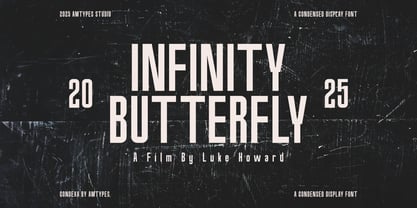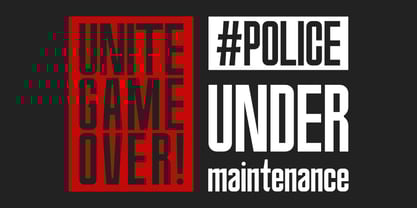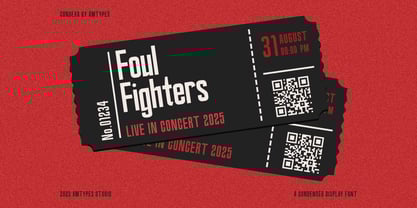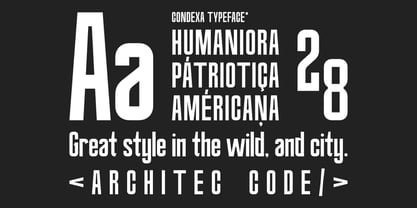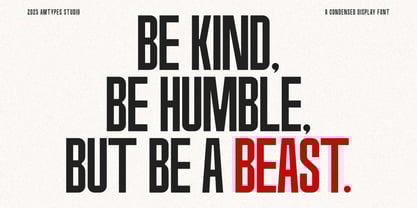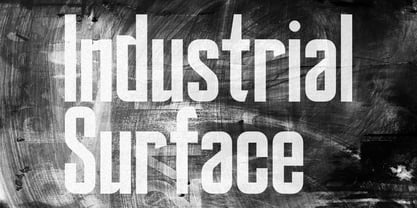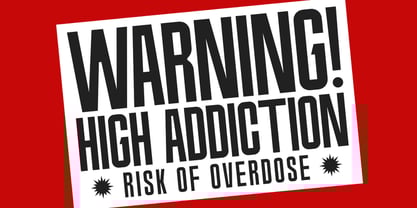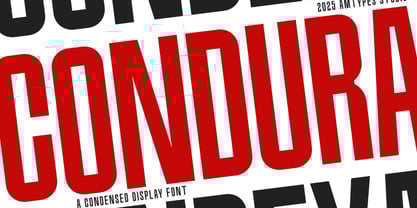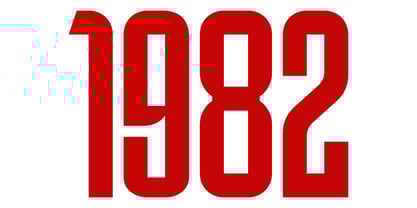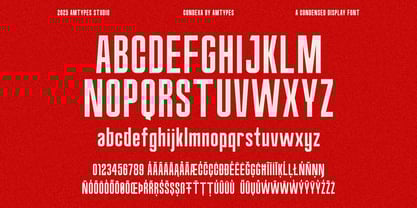
Condura
by Angga Mahardika
CONDURA is a bold and tightly–crafted condensed display font designed for striking visual presence. Built with tall proportions, sharp geometry, and industrial character, CONDURA delivers maximum impact in minimal horizontal space. Its powerful vertical rhythm makes it ideal for posters, movie titles, editorial layouts, sports graphics, branding, logo work, album covers, and high–contrast typographic compositions. Featuring clean lines with a slightly mechanical feel, CONDURA blends modern versatility with an unmistakably strong voice. Whether you’re designing gritty urban visuals, futuristic interfaces, or bold promotional headlines, this typeface brings clarity, attitude, and edge to every project.